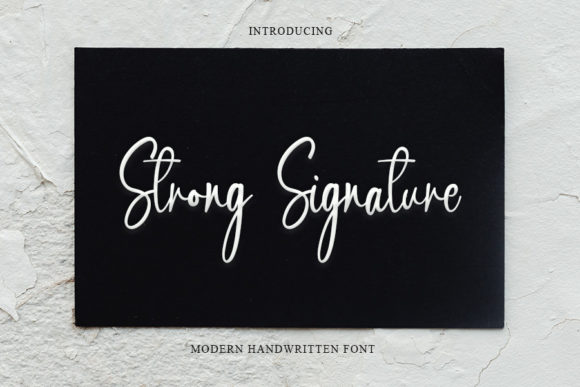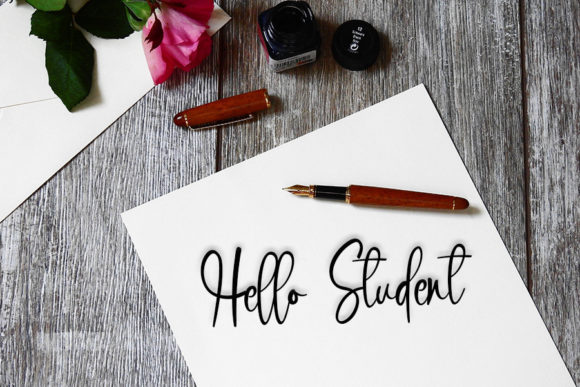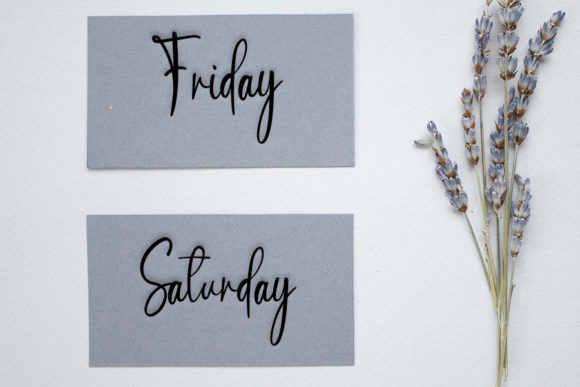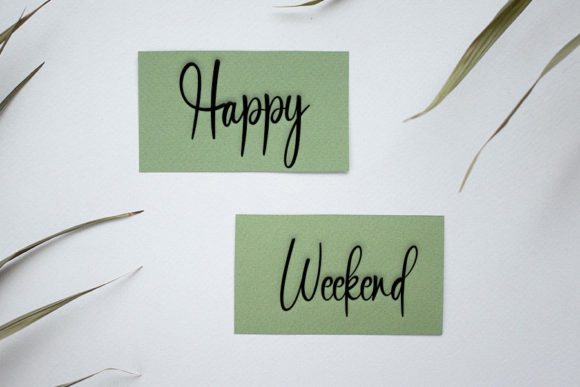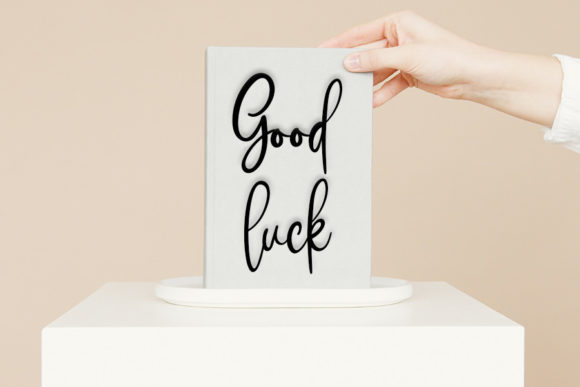
Strong Signature Font
About Strong Signature Font
Strong Signature is a casual handwritten font, carefully designed to become a true favorite. It maintains its classy calligraphic influences while feeling contemporary and fresh. Fall in love with it and bring your projects to the highest levels!